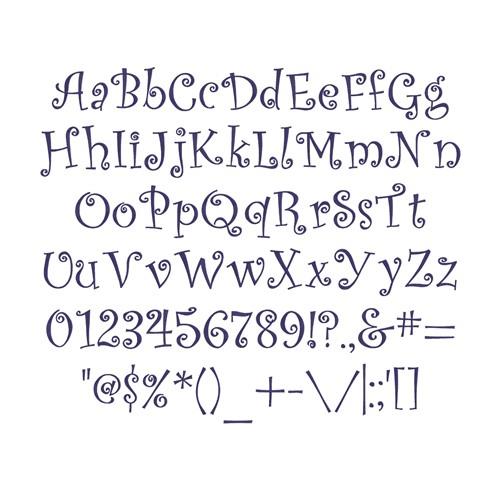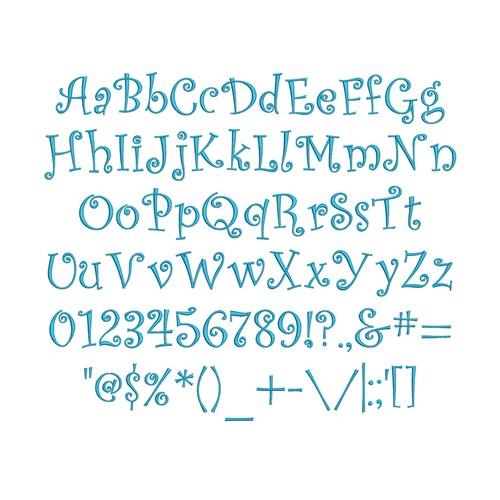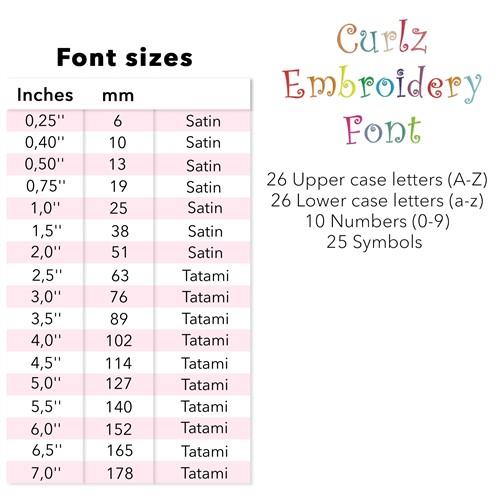
Maya Kreations is happy to present Curlz Font machine embroidery font which has Playful and decorative machine embroidery font with curls and swirls, perfect for cheerful projects on shirts and accessories. Available in PES, DST, and other formats. included. If you would like to view more embroidery fonts and alphabets please search our embroidery fonts page.